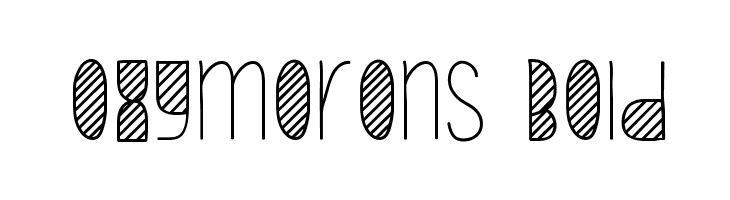
A playful, hand-drawn font with thin lines and decorative striped patterns.
A playful, whimsical font with a mix of outlined and filled elements, ideal for creative projects.